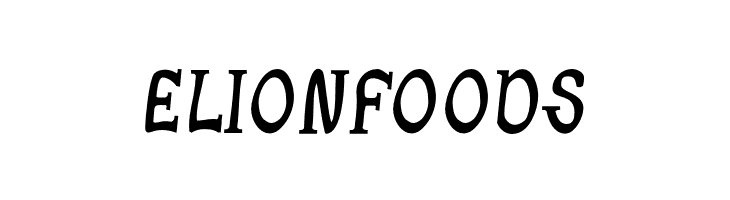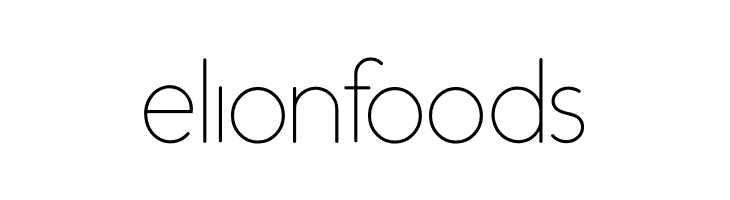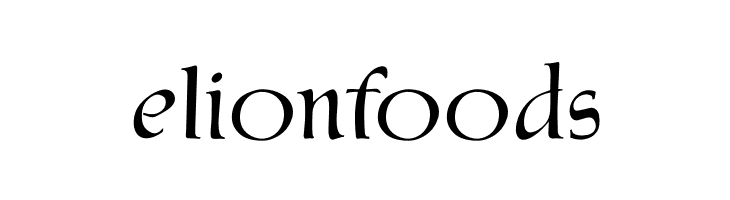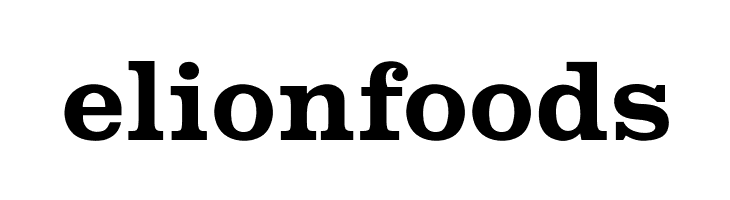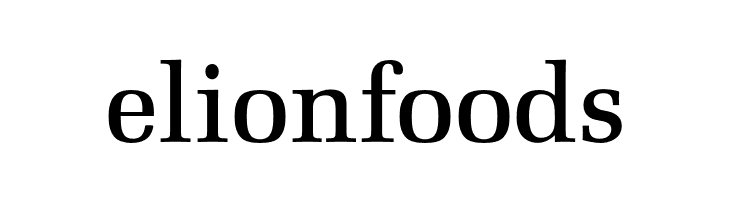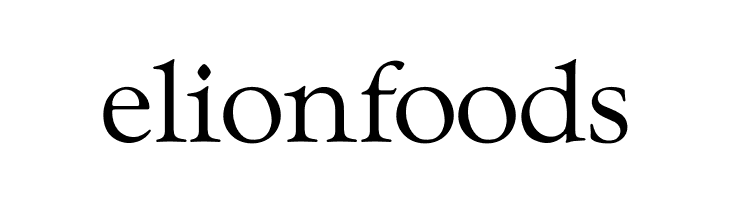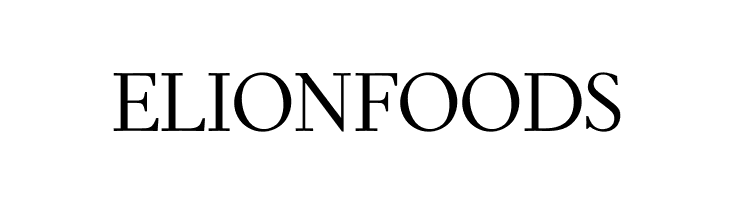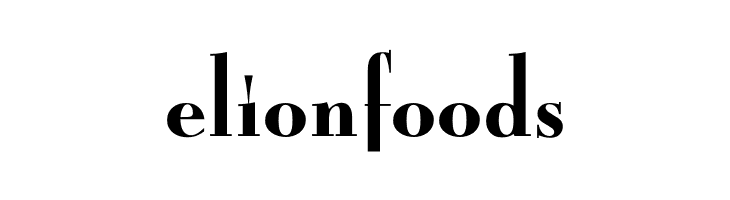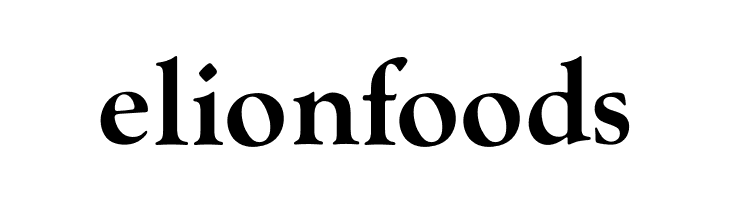
( Fonts by Alvaro Thomaz - alvarothomaz.com )
A bold, geometric font with a modern and minimalist aesthetic.
A classic serif font with elegant, sharp serifs and a modern touch.
A classic slab serif font with bold, block-like serifs and a strong presence.
A modern serif font with elegant proportions and refined serifs.
A classic serif font with elegant, refined strokes and balanced proportions.
A classic old-style serif font with elegant serifs and high contrast.
A bold serif font with high contrast and classic elegance.
A bold, classic serif font with elegant curves and strong strokes.
A classic serif font with elegant proportions and refined serifs.